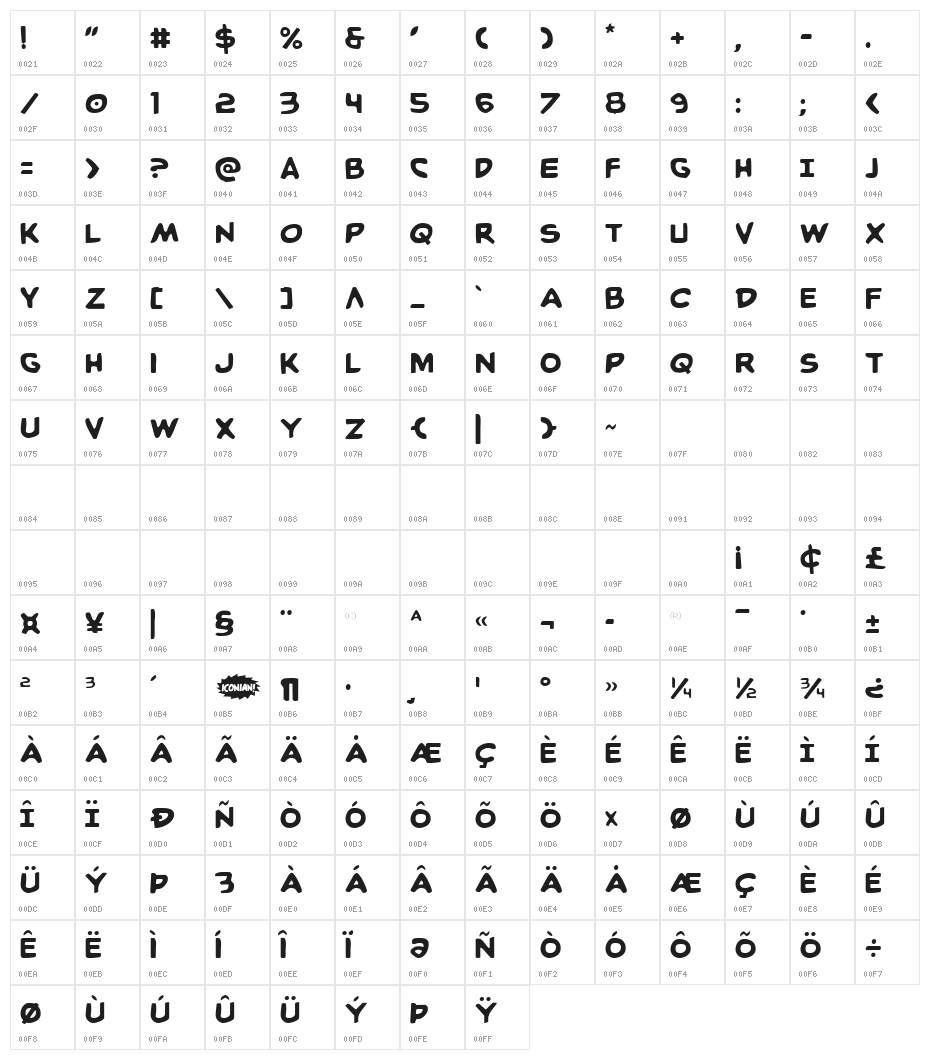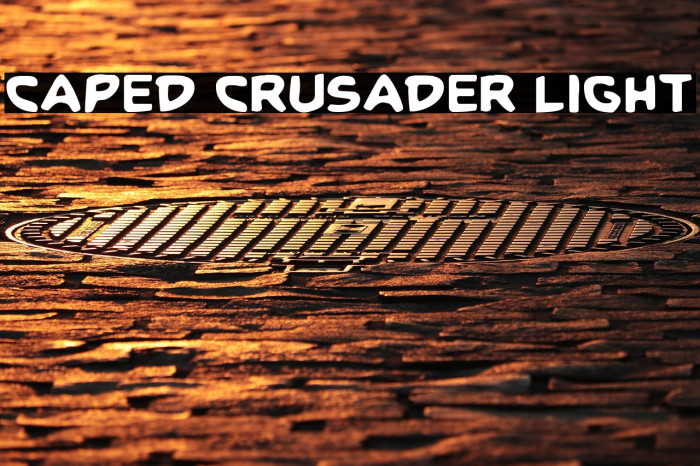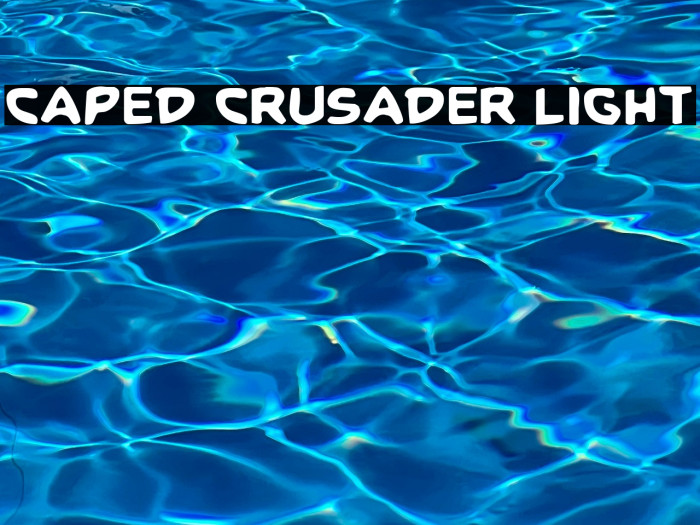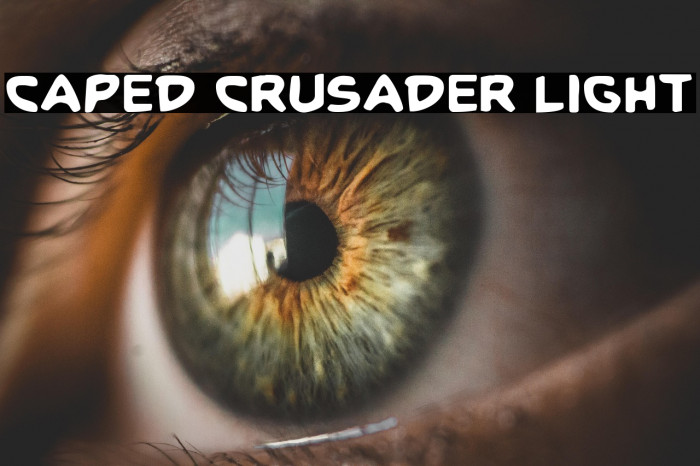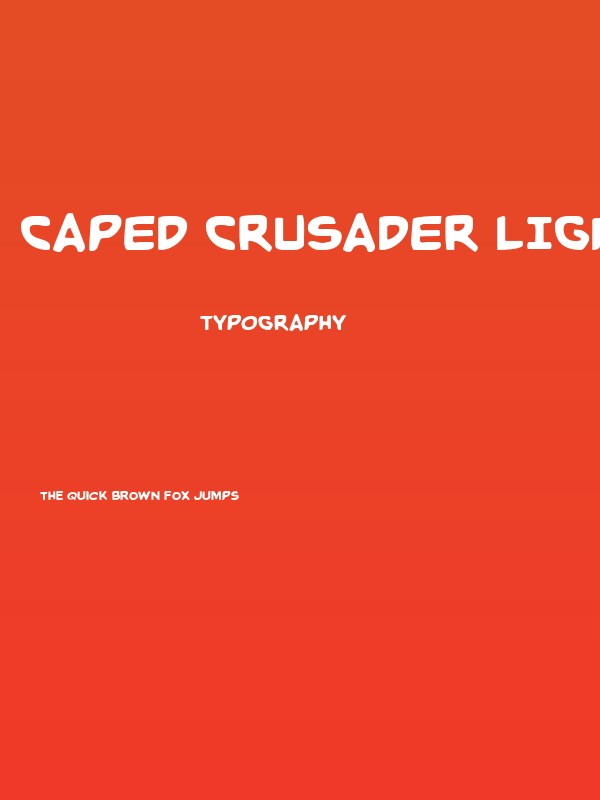
Caped Crusader Light Font
Caped Crusader Light Description
This font features a bold, playful style with rounded edges and a slightly comic appearance. The characters are thick and robust, giving a sense of strength and approachability. The uppercase and lowercase letters maintain a consistent weight, while the numbers and special characters are designed to match the overall aesthetic. The font's style is reminiscent of comic book lettering, making it ideal for projects that require a fun and engaging look. Its bold presence ensures readability while adding a touch of whimsy.
| Overall Style | Playful, Comic |
| Proposed Projects | Ideal for comic books, children's books, playful branding, and posters. |